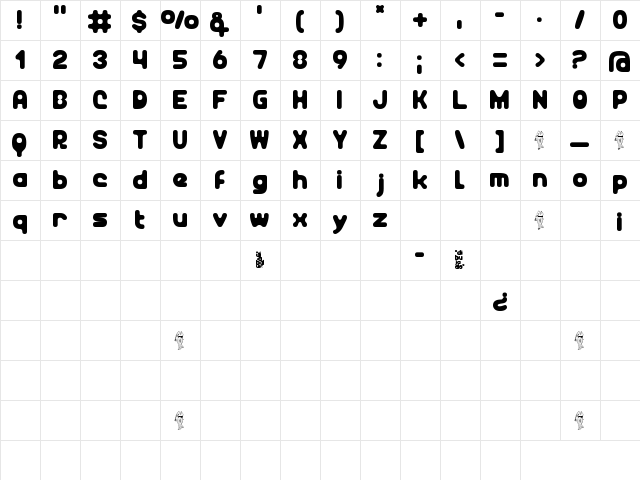
Unocide Pills
| Designer | *dibujado* |
Design Context for Unocide Typeface
Unocide offers clean, dependable letterforms without strong stylistic allegiance, making it a practical choice for designers who need flexibility.